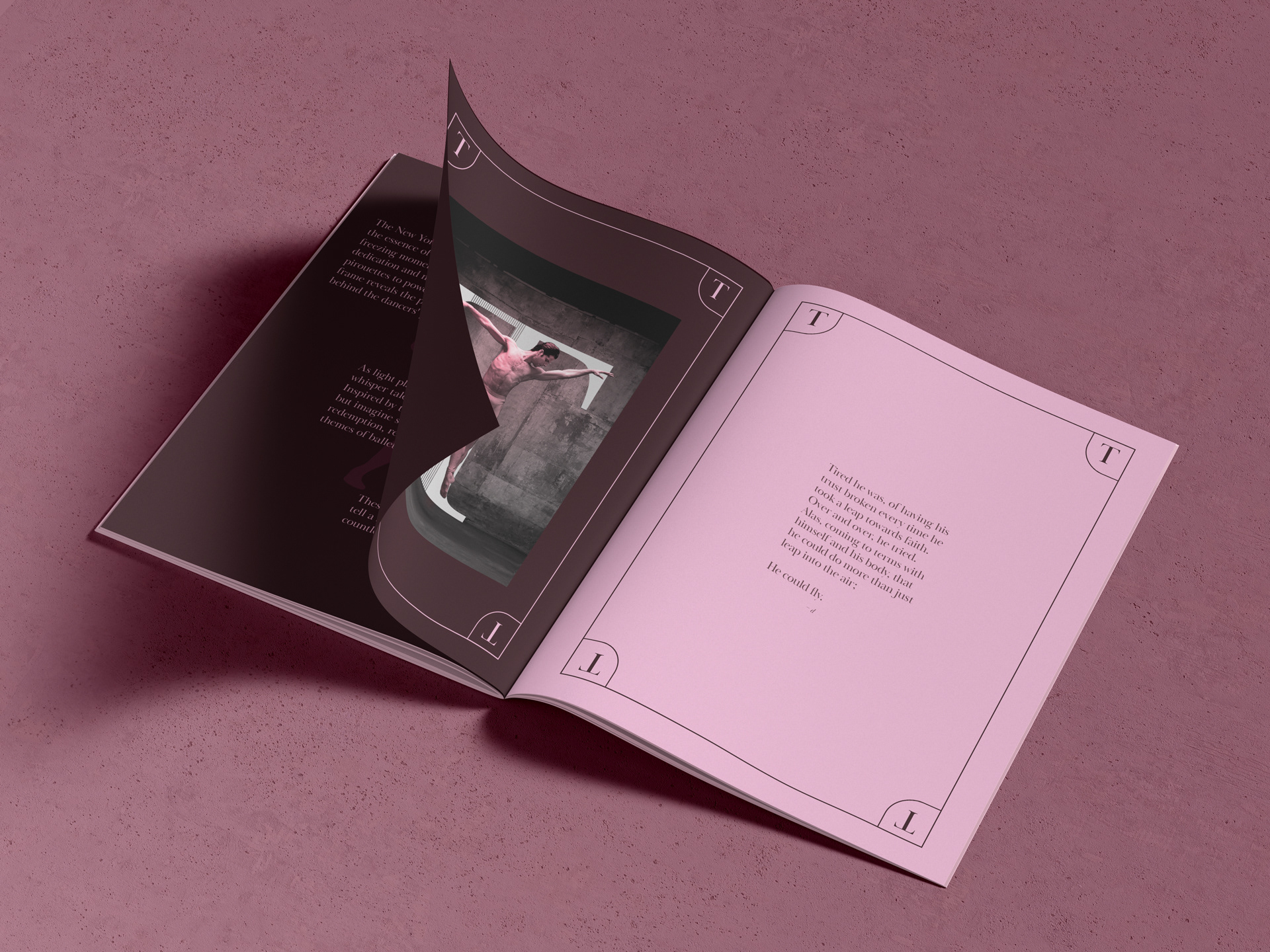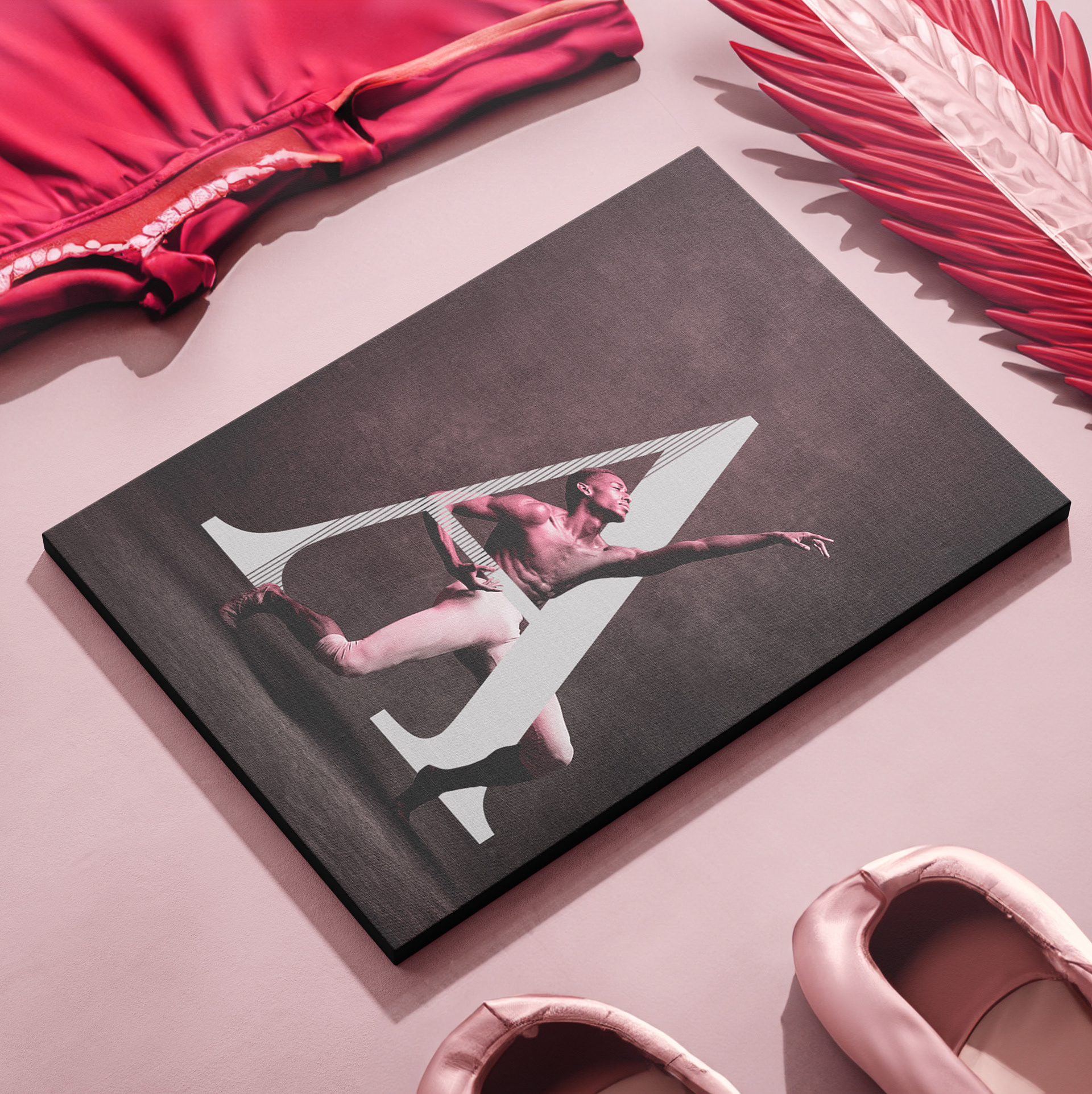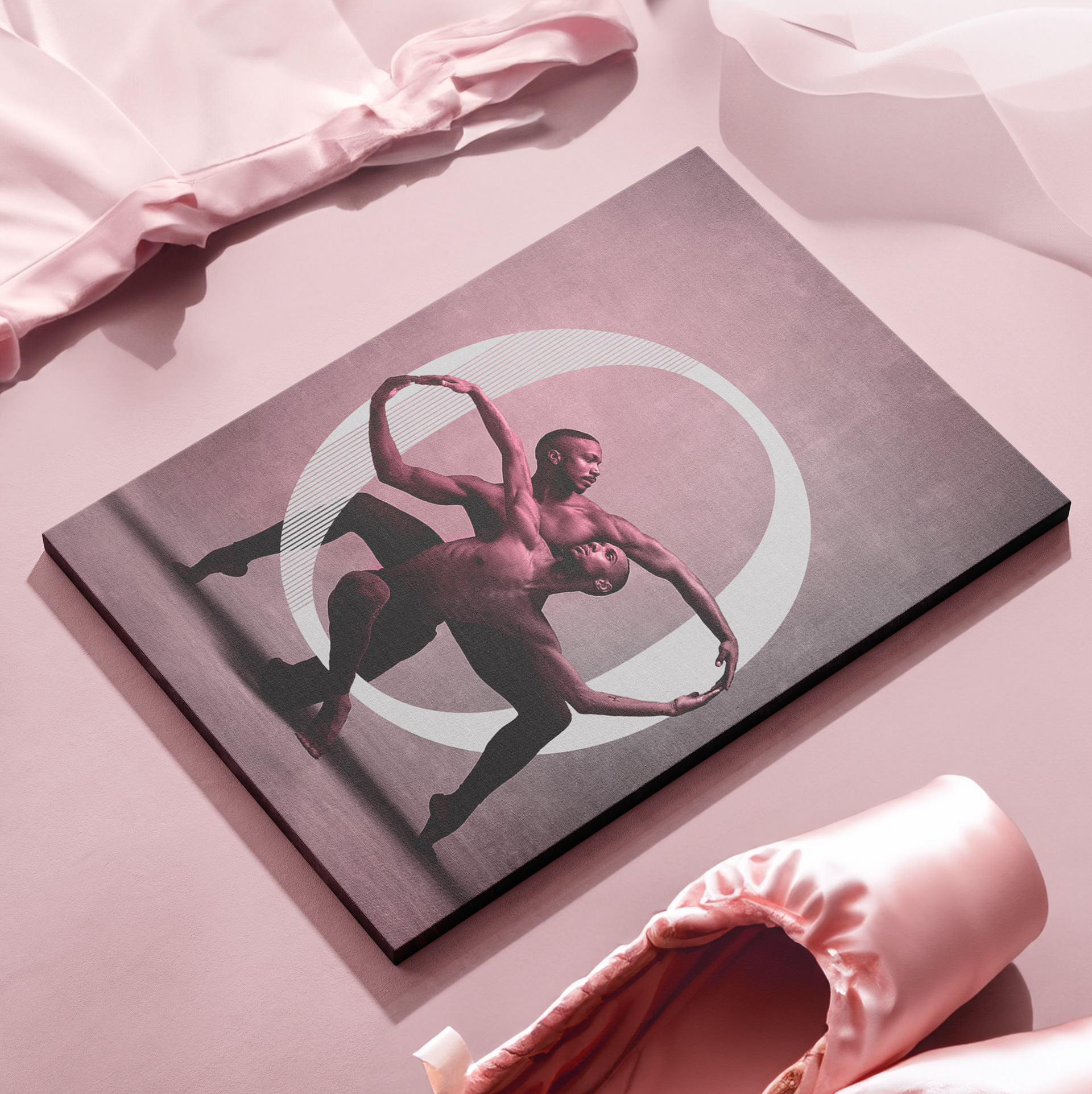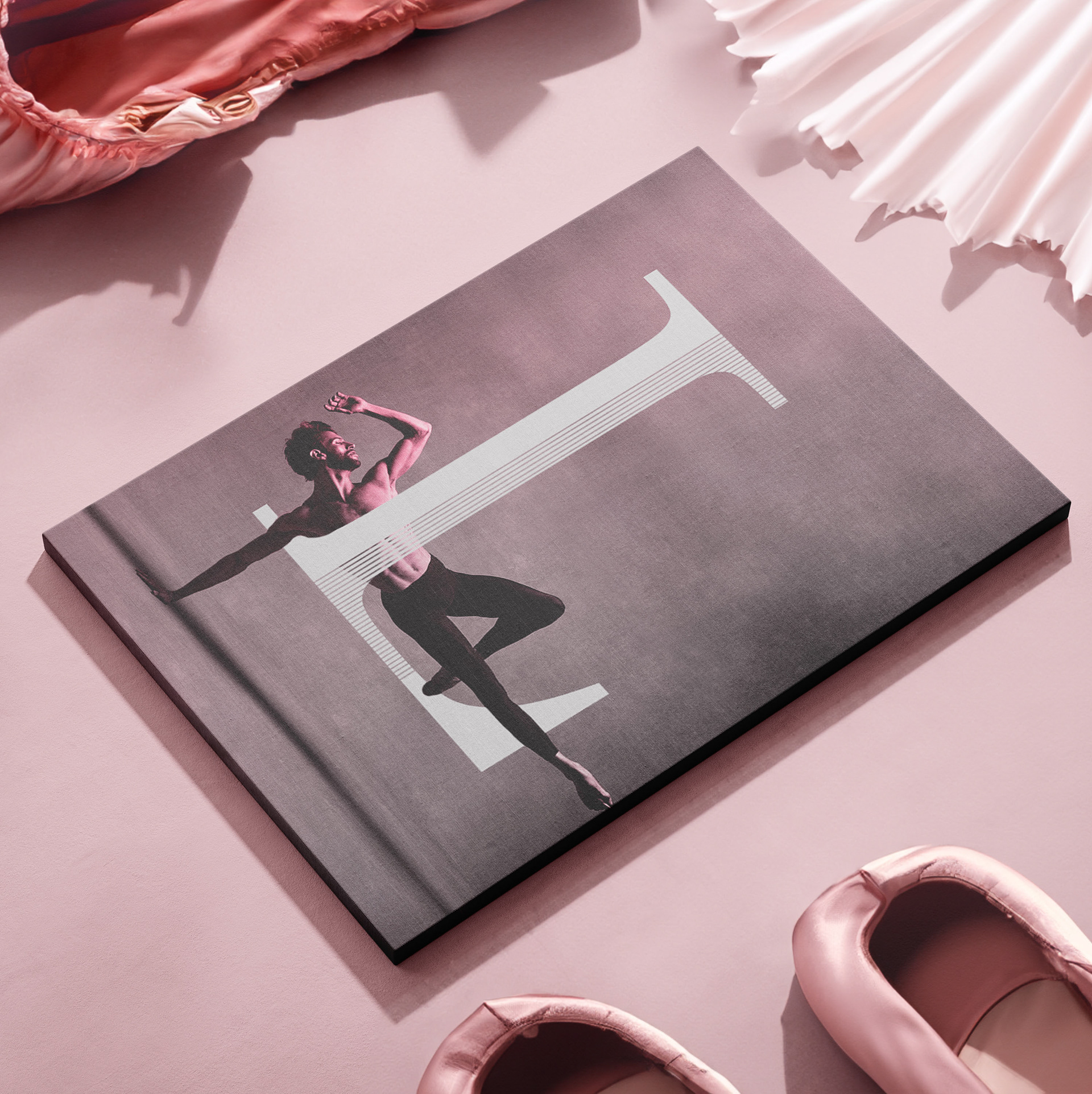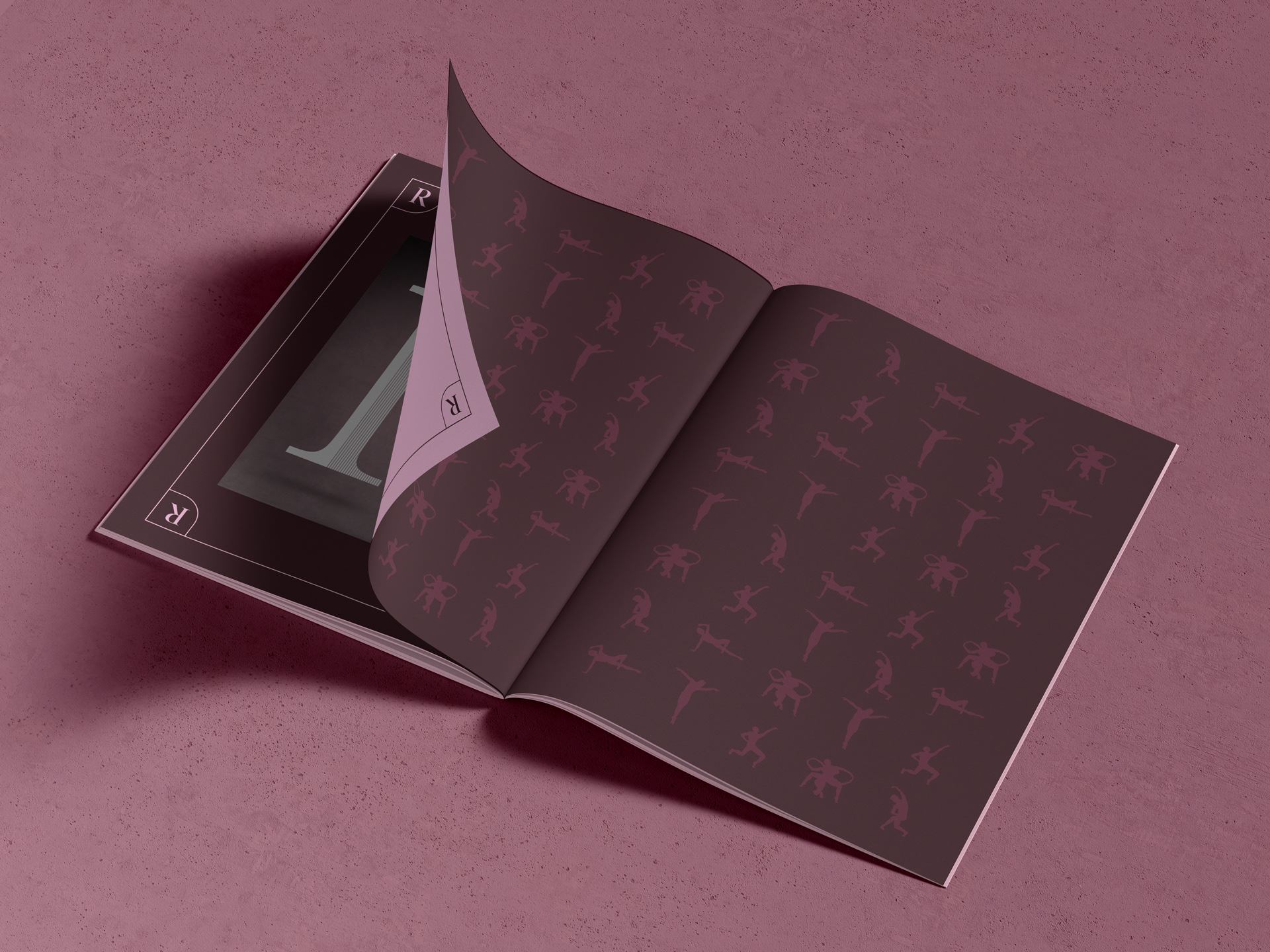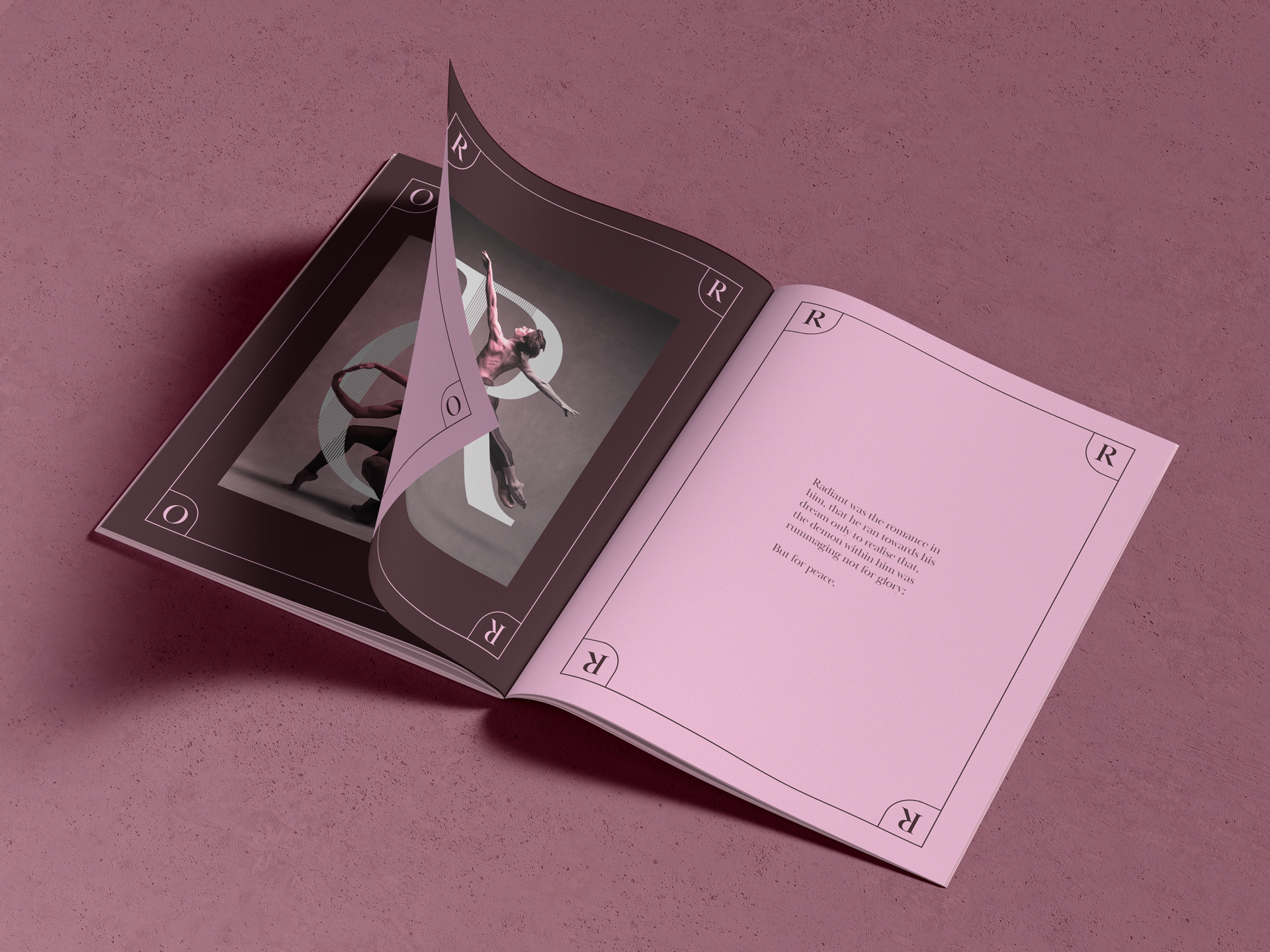
The New York Dance Project captures the essence of America's ballet elite, freezing moments that tell stories of dedication and mastery. From graceful pirouettes to powerful leaps, each frame reveals the passion and skill behind the dancers' performances.
As light plays upon their forms, shadows whisper tales of triumph and resilience. Inspired by these images, one can't help but imagine stories of love, loss, and redemption, reflecting the timeless themes of ballet.
In their elegant lines and graceful arcs, we find inspiration to dream, create, and believe in the transformative power of art.
I found my inspiration from these photographs and created this.